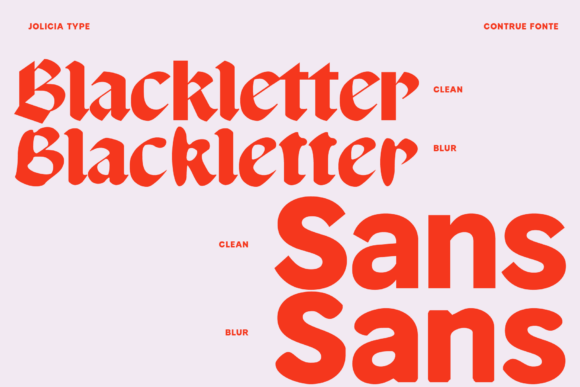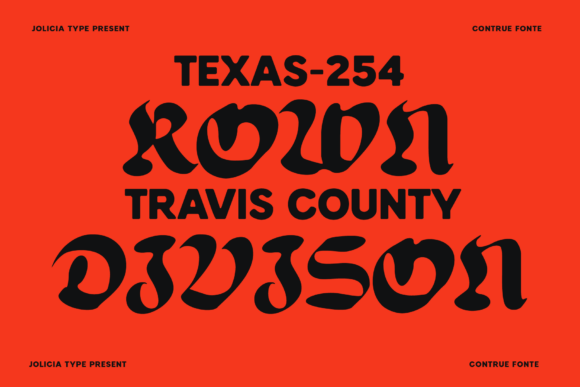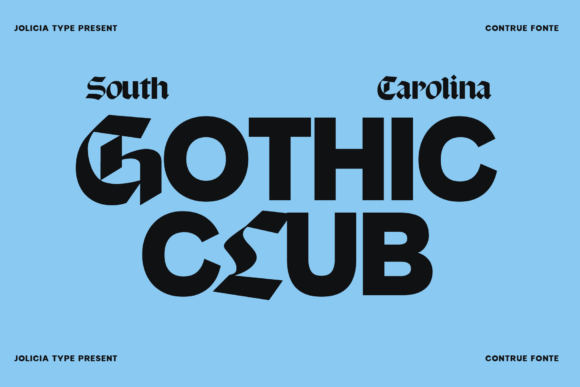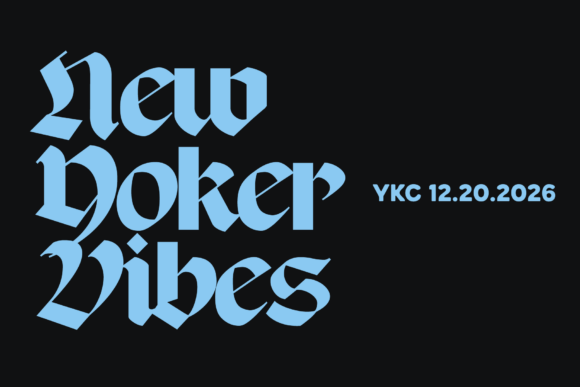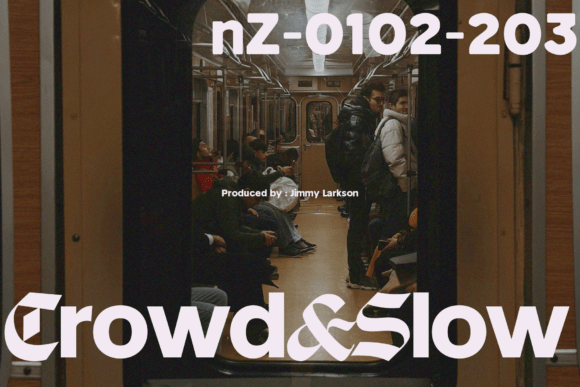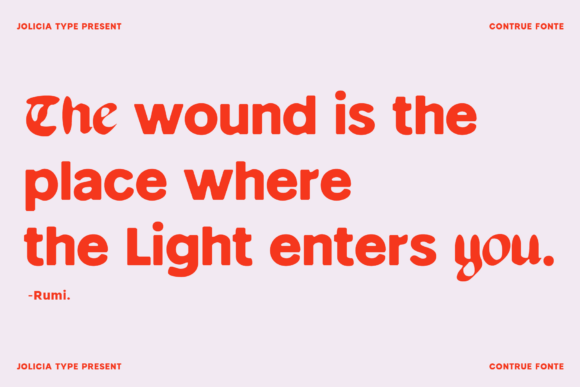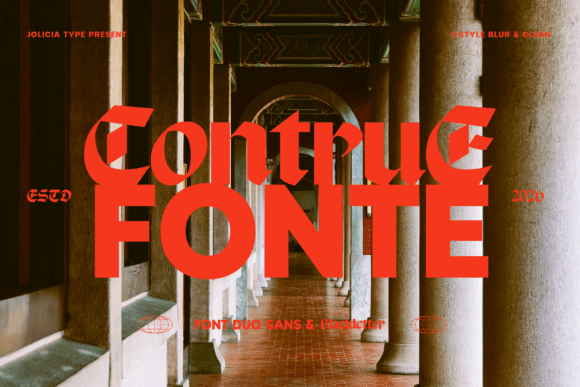
Introducing Contrue Duo Font: A Revolutionary Bold Font Pairing Modern and Medieval Styles
In the world of typography, finding the perfect font duo that combines contrasting styles to create a unique visual identity can be a daunting task. However, Contrue Duo Font has emerged as a game-changer, bridging the gap between modern and medieval aesthetics. This bold font duo seamlessly merges a clean, contemporary sans serif with a dramatic blackletter style, offering designers an unparalleled level of versatility and creativity.
A Harmonious Contrast: Clean and Ornate Styles
Contrue Fonte’s sans serif counterpart boasts a sleek, modern design that exudes clarity and sophistication. Its clean lines and minimalist approach make it perfect for headlines, titles, and statements that require a touch of elegance. On the other hand, the blackletter style adds a dramatic flair, injecting a sense of mystery and ornateness into any design. This striking contrast between clarity and ornament empowers designers to create visually stunning pieces that command attention.
Contrue Fonte’s adaptability knows no bounds, making it an excellent choice for various design applications. From branding and posters to album covers and editorial design, this font duo offers the perfect blend of modernity and classic charm. Designers can effortlessly switch between the clean sans serif and the ornate blackletter style, creating a distinct visual narrative that resonates with their audience.
Elevating Visual Impact: The Blur Style
To further amplify the visual impact of Contrue Fonte, the font duo includes a distinctive blur style that adds depth, motion, and a surreal atmosphere to designs. This innovative feature is perfect for experimental layouts and modern visual storytelling, allowing designers to push the boundaries of creativity. The blur style seamlessly integrates with the clean and blackletter styles, creating a cohesive and captivating visual experience.
Designing with Contrue Fonte: A Fluid Typographic Experience
Contrue Fonte’s true strength lies in its ability to empower designers to move fluidly between sharp minimalism and dark, expressive typography within a single font system. This versatility eliminates the need for multiple font pairings, streamlining the design process and fostering creativity. Whether you’re aiming for a bold statement or a subtle nuance, Contrue Fonte provides the perfect typographic tools to bring your vision to life.
• Bold Font Duo: Combines a clean sans serif with a dramatic blackletter style for a striking contrast.
• Versatility: Suitable for branding, posters, album covers, editorial design, and more.
• Blur Style: Adds depth, motion, and a surreal atmosphere to designs.
• Fluid Typographic Experience: Seamlessly switch between sharp minimalism and dark, expressive typography.
Contrue Duo Font is a revolutionary bold font pairing that redefines the boundaries of typography. By combining modern and medieval styles, this font duo offers designers an unparalleled level of creativity and versatility. With its clean sans serif, dramatic blackletter style, and distinctive blur effect, Contrue Fonte is the perfect tool for crafting visually stunning designs that leave a lasting impression.
Whether you’re a seasoned designer or a crafty enthusiast, Contrue Fonte invites you to explore the limitless possibilities of typography and push the boundaries of visual storytelling. Experience the power of Contrue Duo Font and elevate your designs to new heights.